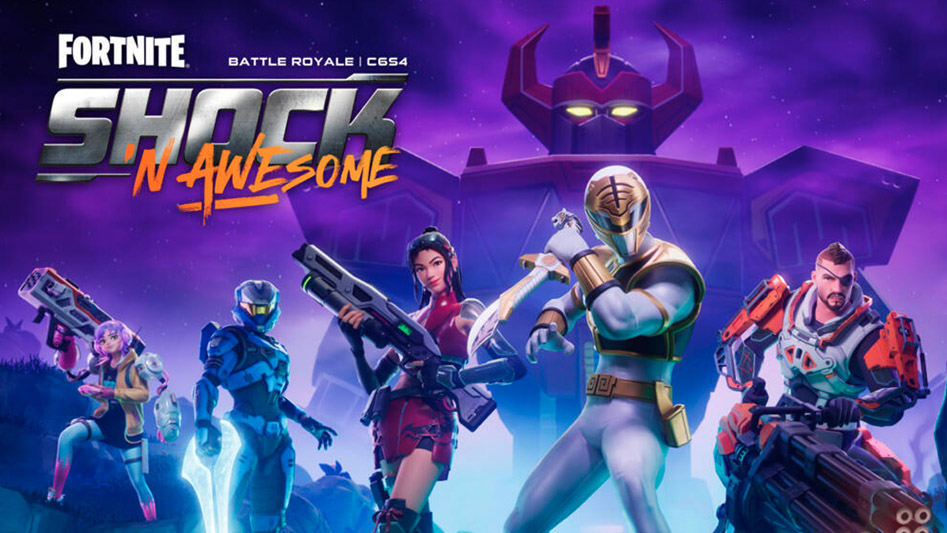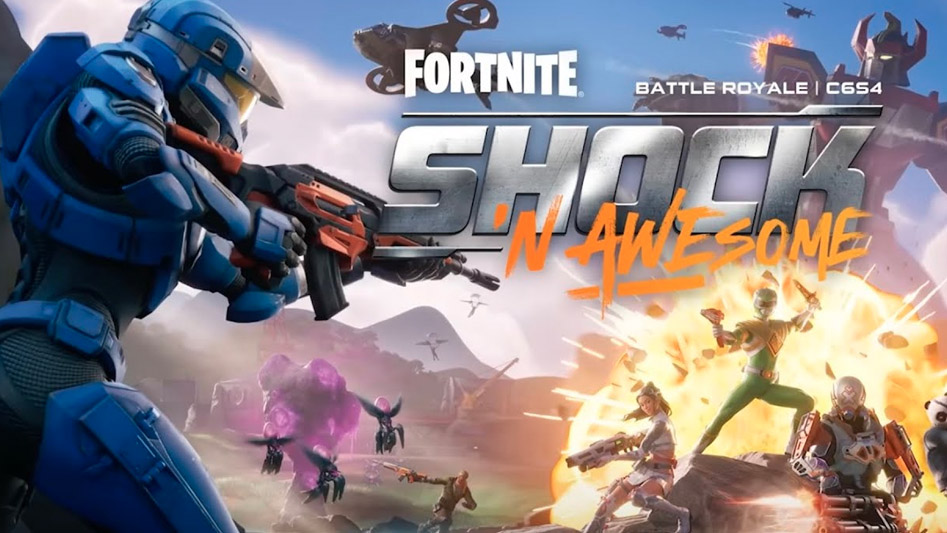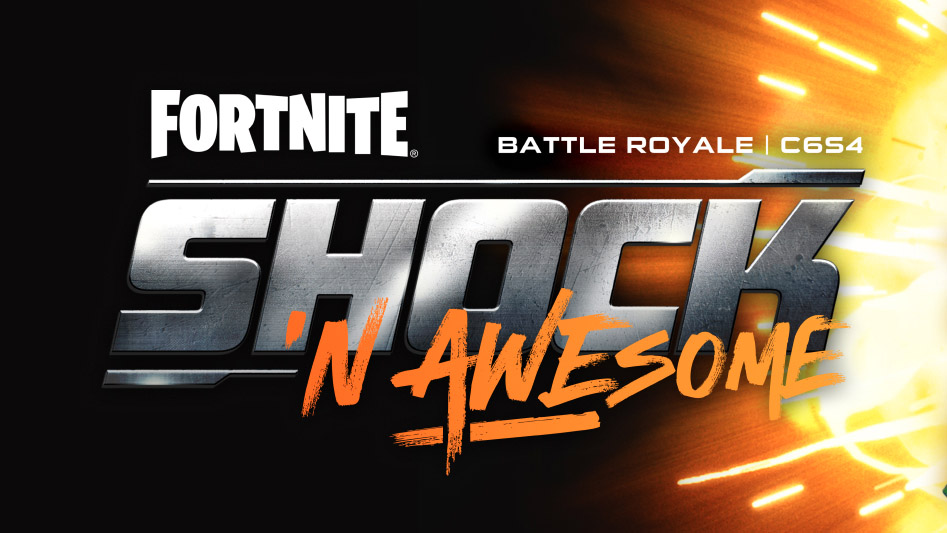
Fortnite choose Atomic Font for new Season
One video game that needs no introduction surely has to be Fortnite – this massively popular franchise (with over 650 million registered players!) selected my font Atomic Marker to front the logo for their latest season, Shock ’N Awesome. The raw energy and texture of this hand-drawn marker pen font injects the excitement needed to match such a fast paced & fun game, amplifying the ‘Awesome’ part of the logo. This is a great example of using contrasting typography, by pairing a dynamic and colourful hand-drawn font against the backdrop of a stronger and more muted sans-serif.